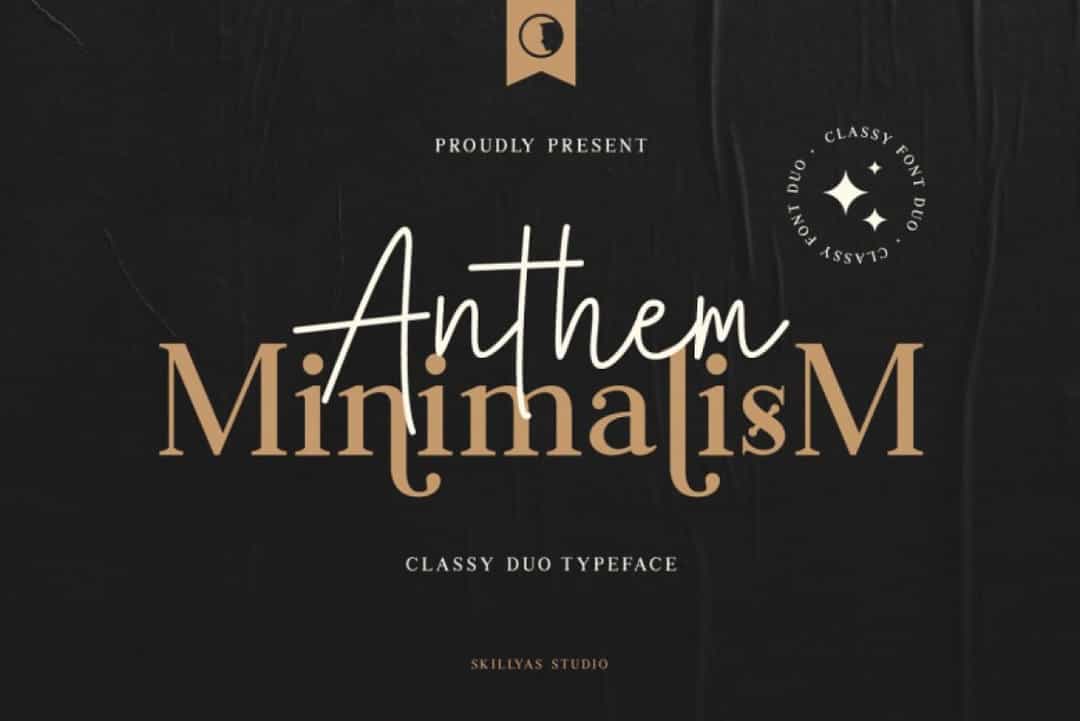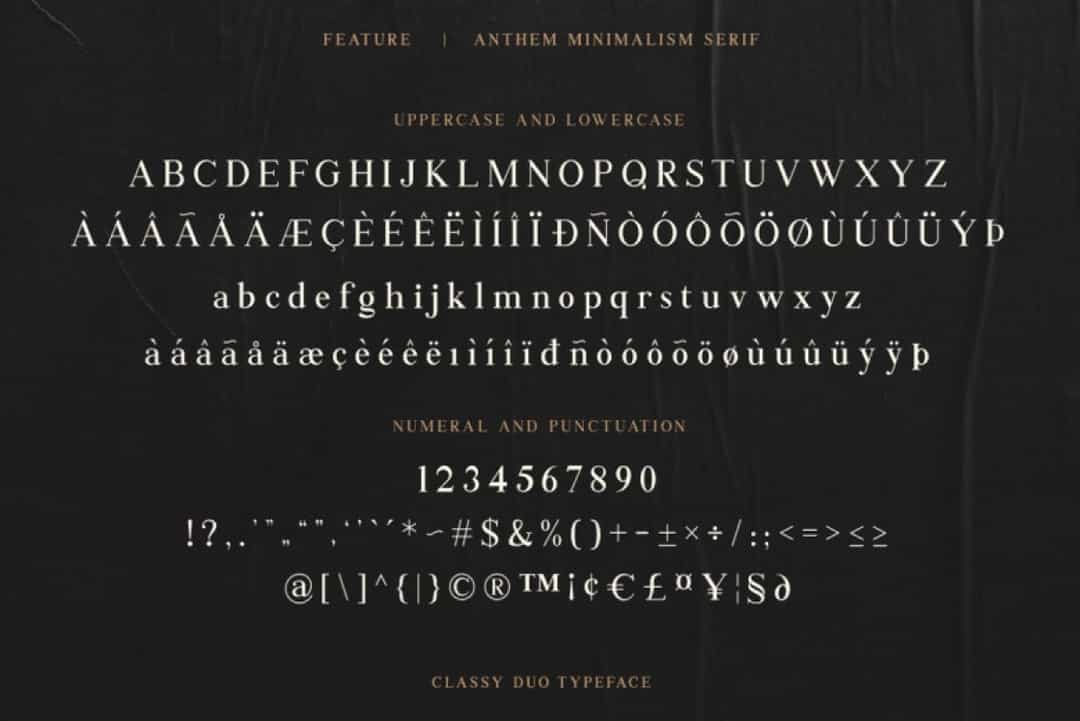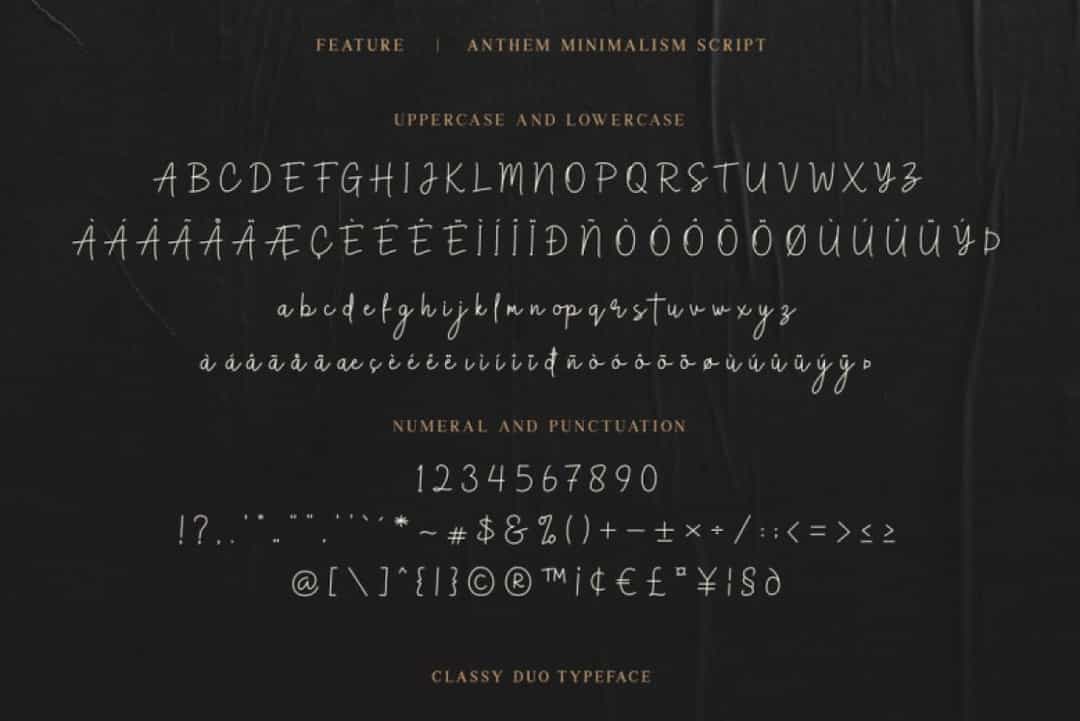
Anthem Minimalism Duo is an exquisite typeface (both serif and script). It makes an impactful statement in designs such as wedding invitations, thank-you cards and quotes, greeting cards and logos business cards, or any design requiring individuality and personal touch. PUA encoded, this typeface provides access to all characters with ease!